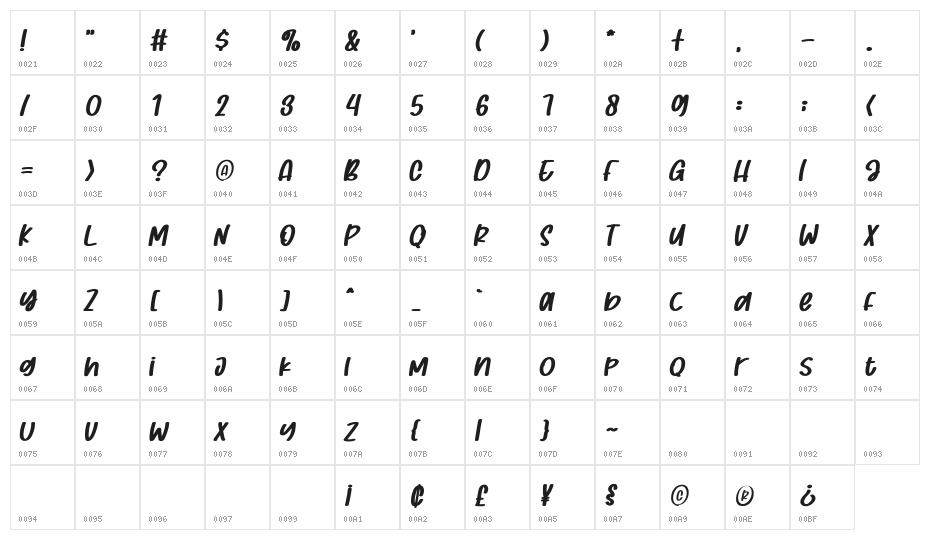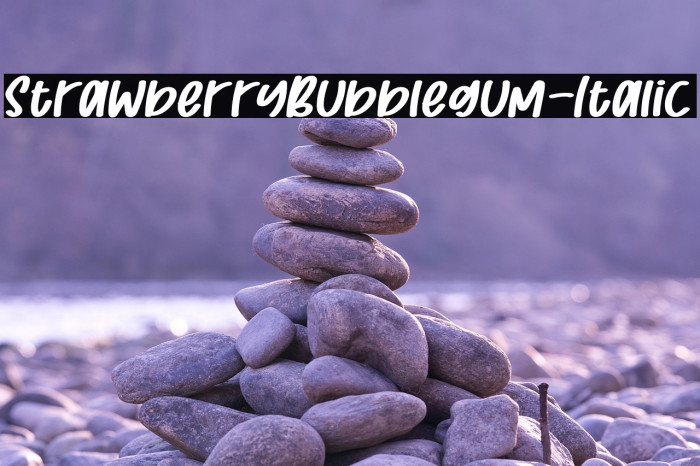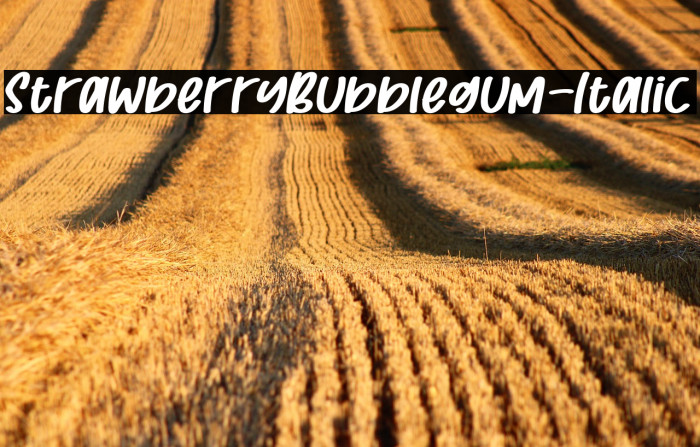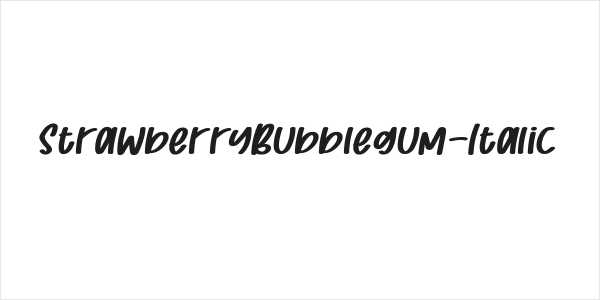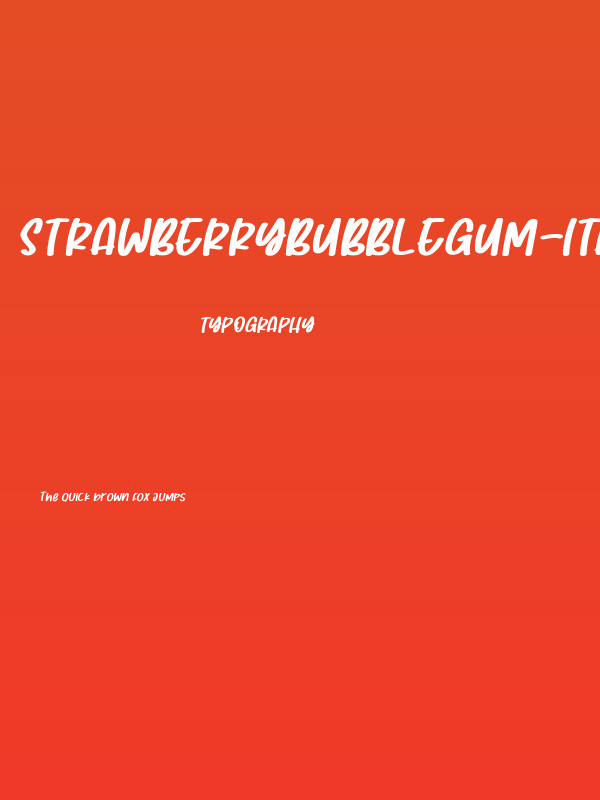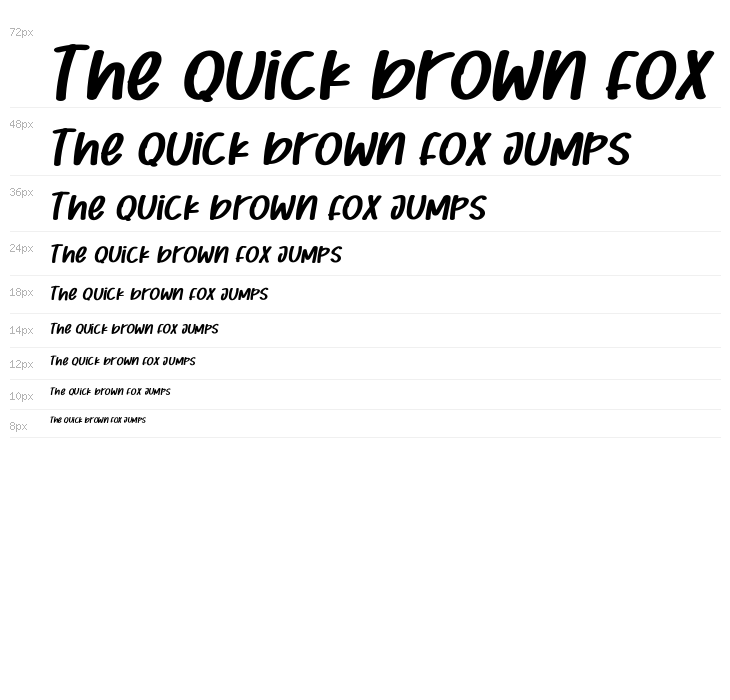
StrawberryBubblegum-Italic Font
StrawberryBubblegum-Italic Description
This playful and energetic font features a bold, handwritten style with a slight slant, giving it an italicized appearance. The letters are rounded and smooth, with a consistent stroke width that adds to its casual and friendly vibe. The uppercase and lowercase letters maintain a cohesive look, while the numerals and special characters are equally expressive and dynamic. This font's lively character makes it ideal for projects that require a touch of fun and creativity.
Overall StylePlayful
Use CaseHeadlines, Logos, Social media graphics
Proposed ProjectsGreat for children's book covers, playful branding, greeting cards, and social media graphics.